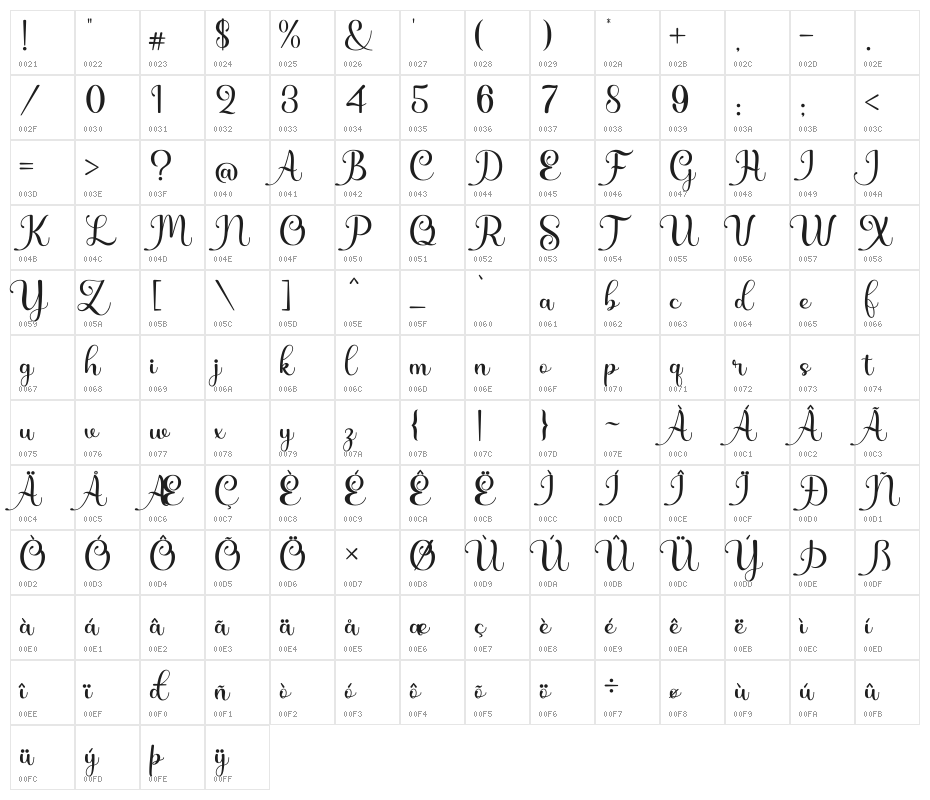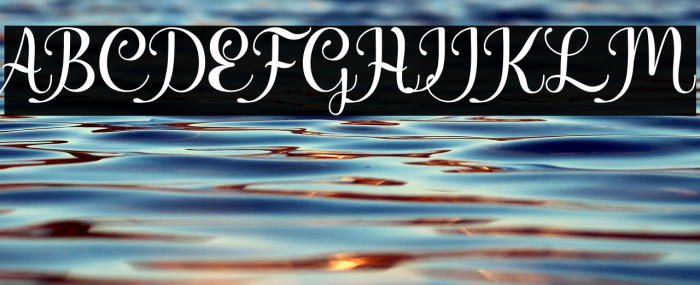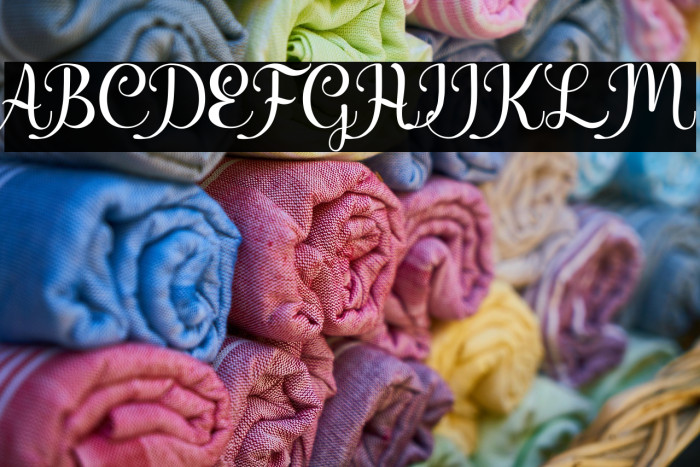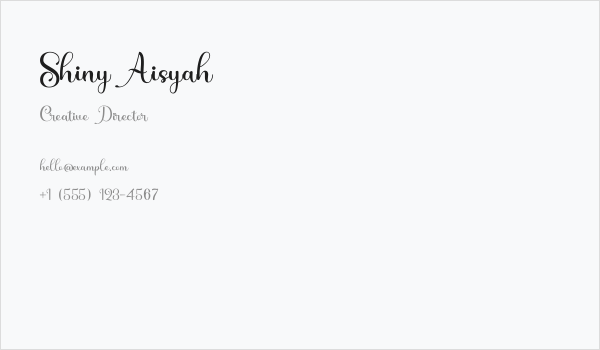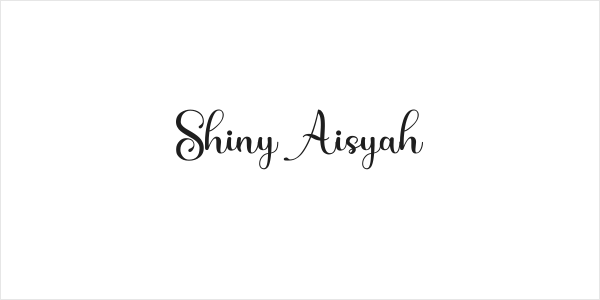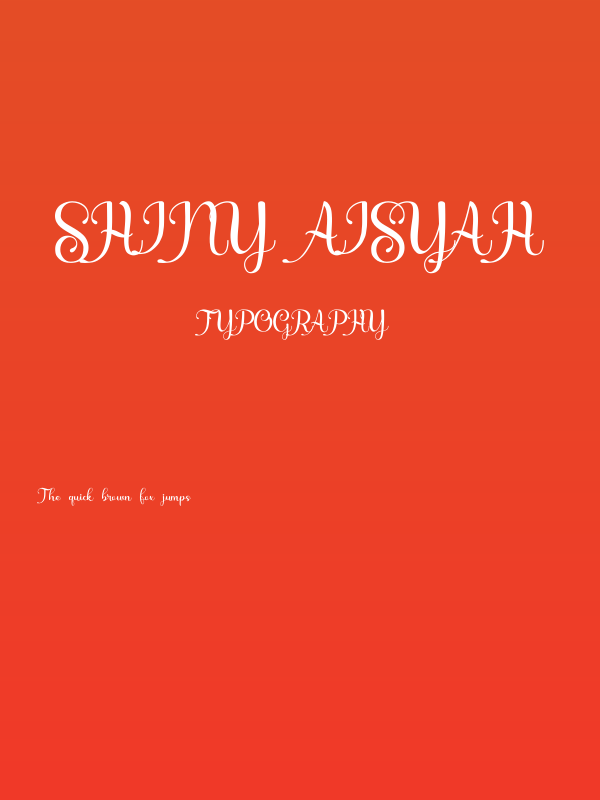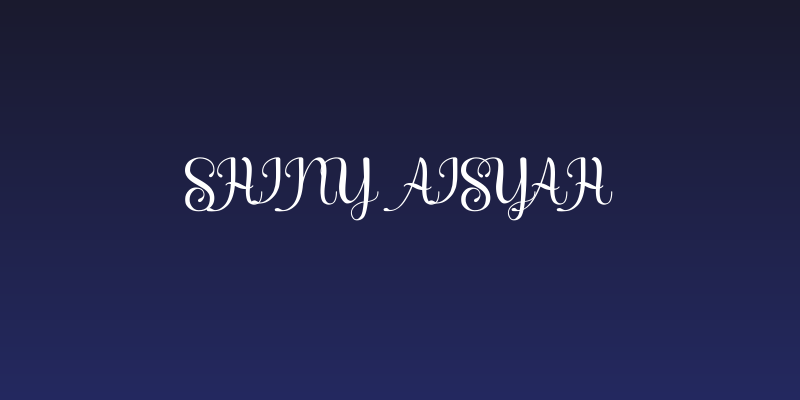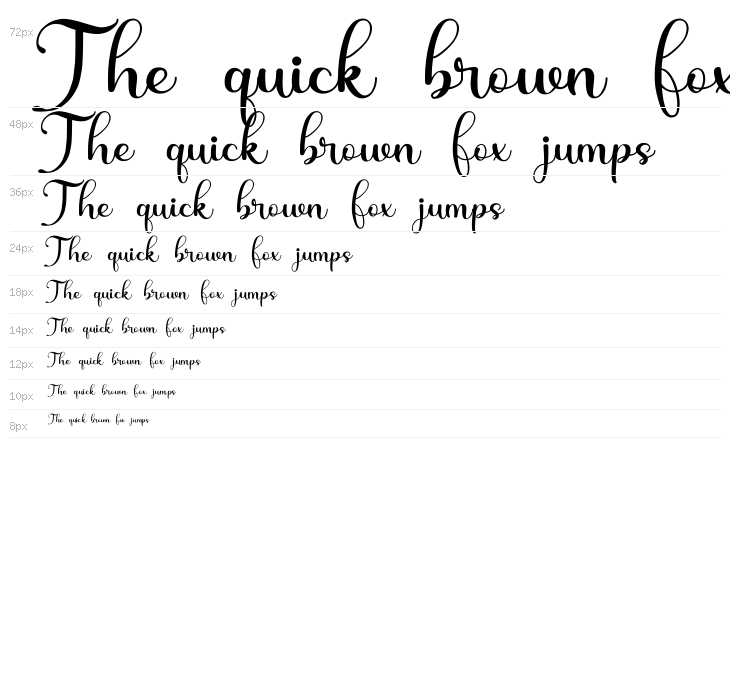
Shiny Aisyah Font
Shiny Aisyah Description
This font features an elegant and flowing script style, characterized by its smooth, cursive lines and graceful curves. The uppercase letters are ornate, with flourishes that add a touch of sophistication, while the lowercase letters maintain a consistent flow, enhancing readability. The numerals are stylish yet clear, complementing the overall aesthetic. Special characters are designed with the same attention to detail, ensuring a cohesive look across all glyphs. This font exudes a sense of elegance and charm, making it suitable for a variety of creative applications.